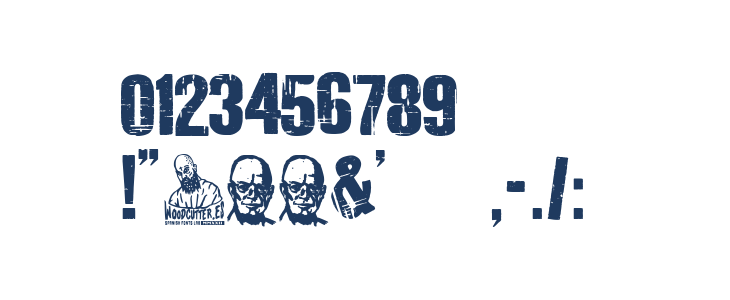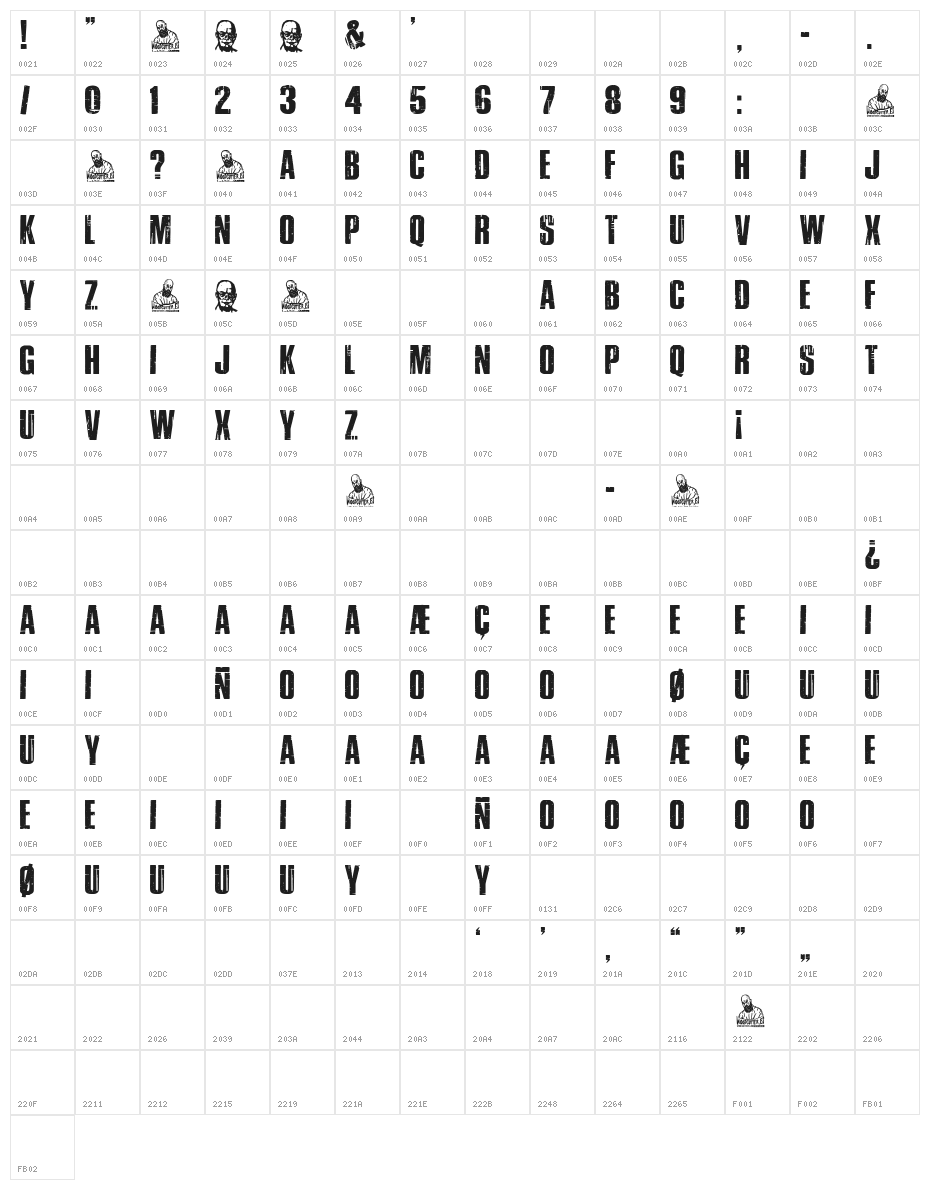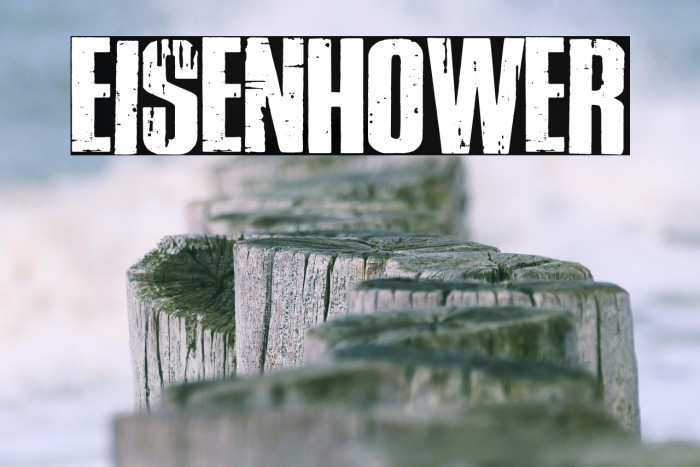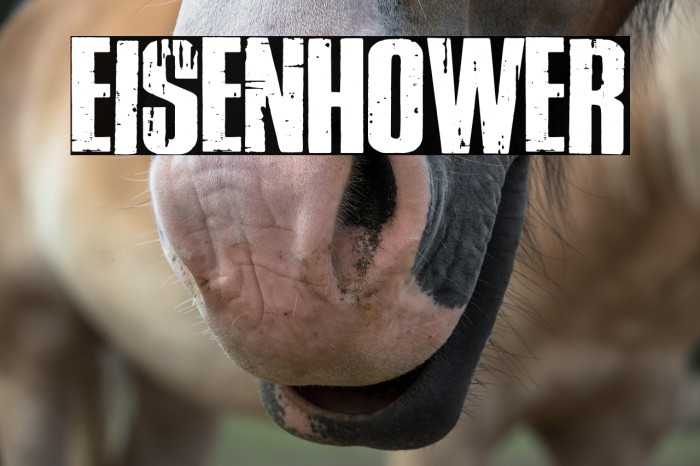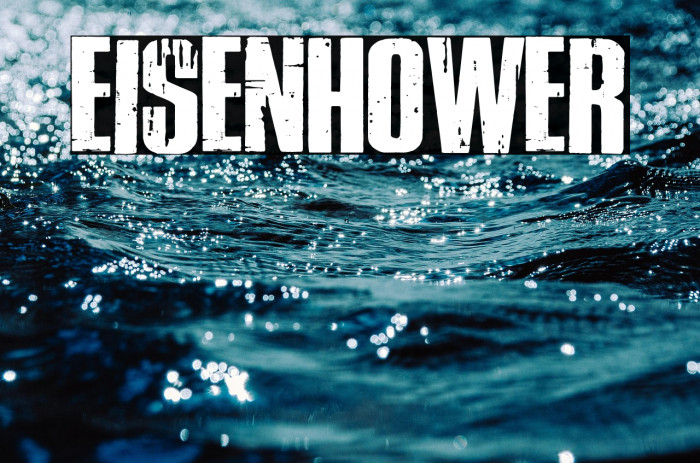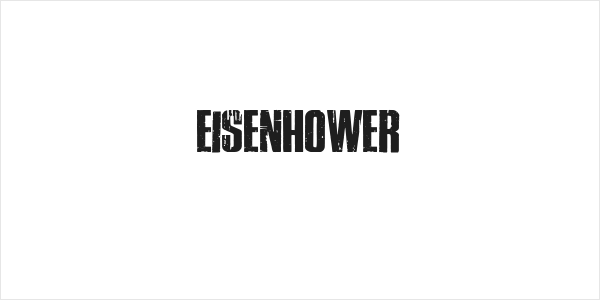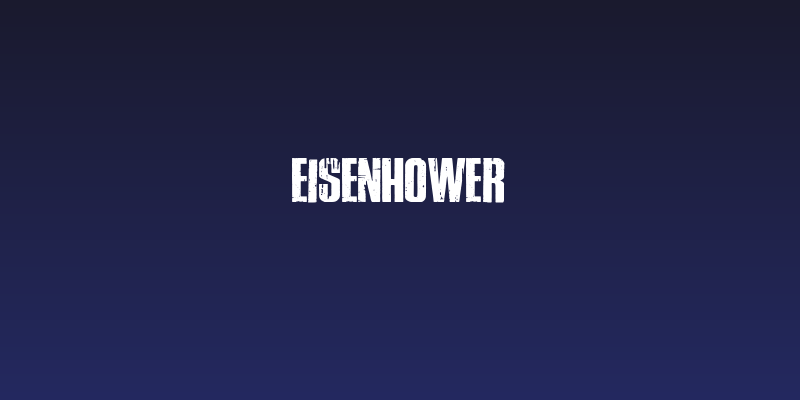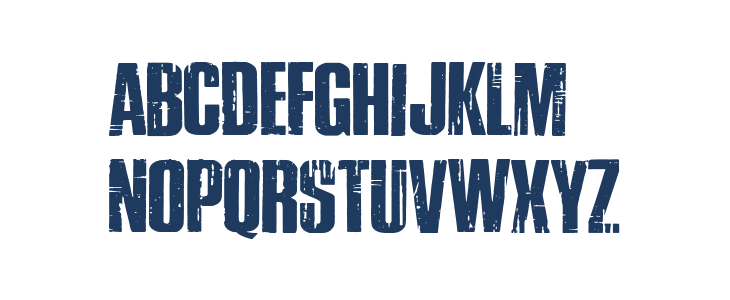
Eisenhower Font
Eisenhower Description
This font features a bold, distressed style with a rugged, textured appearance. The characters are uppercase and have a blocky, impactful design that conveys strength and durability. The distressed texture gives it a vintage, worn look, making it ideal for projects that require a gritty or industrial feel. The numbers and special characters maintain the same bold and textured style, ensuring consistency across all elements. This font is perfect for creating eye-catching headlines or logos that need to stand out with a bold statement.
| Proposed Projects | Ideal for vintage posters, industrial-themed designs, logos, and bold headlines. |